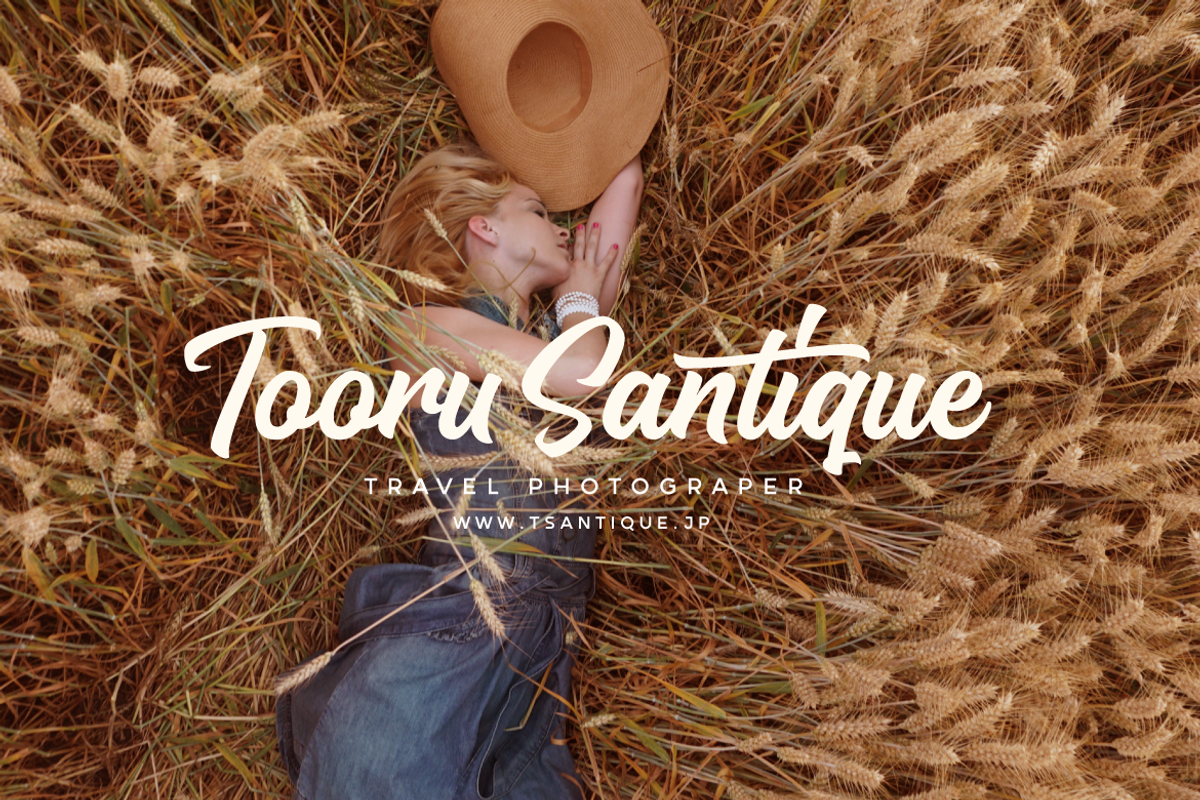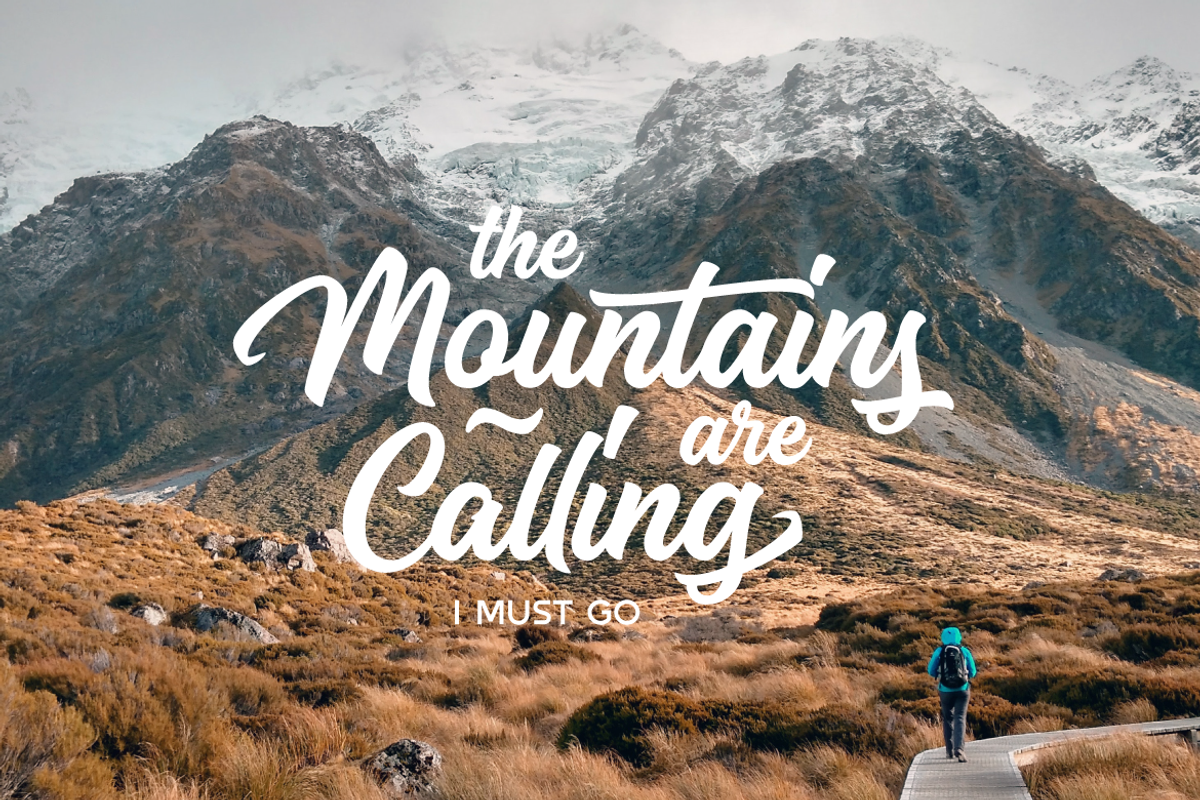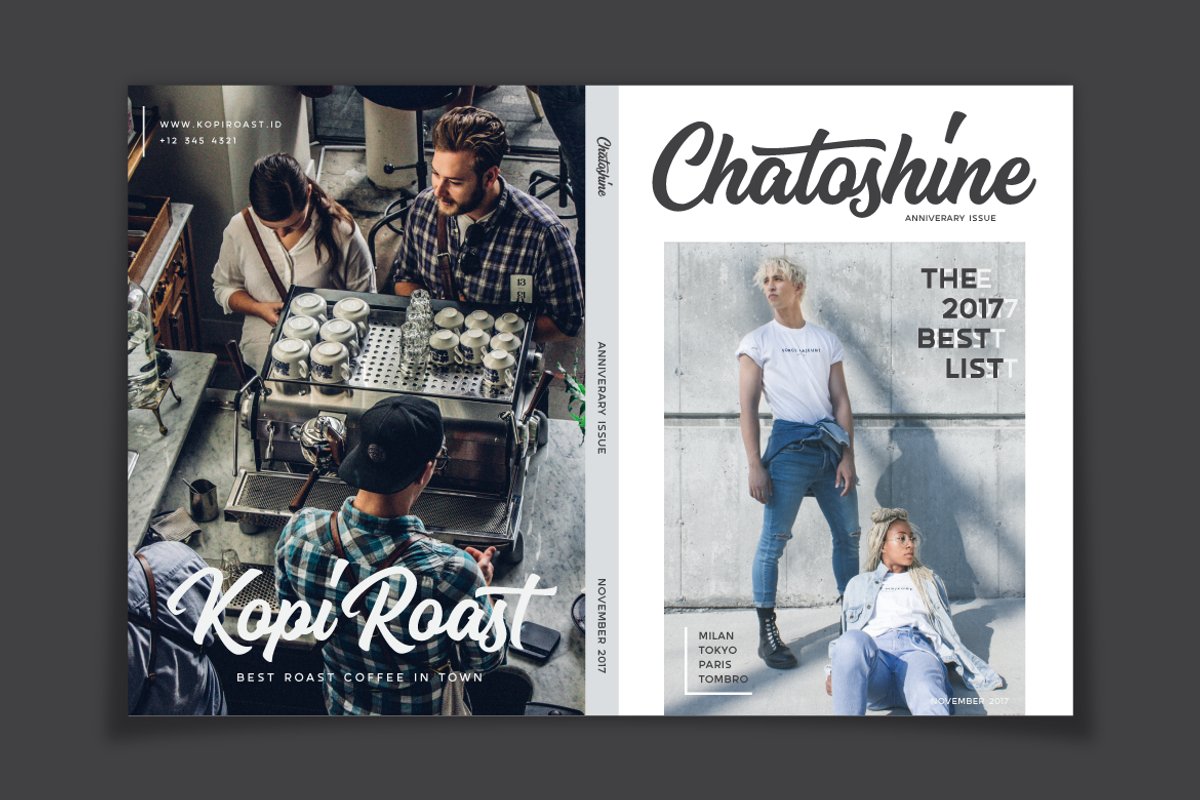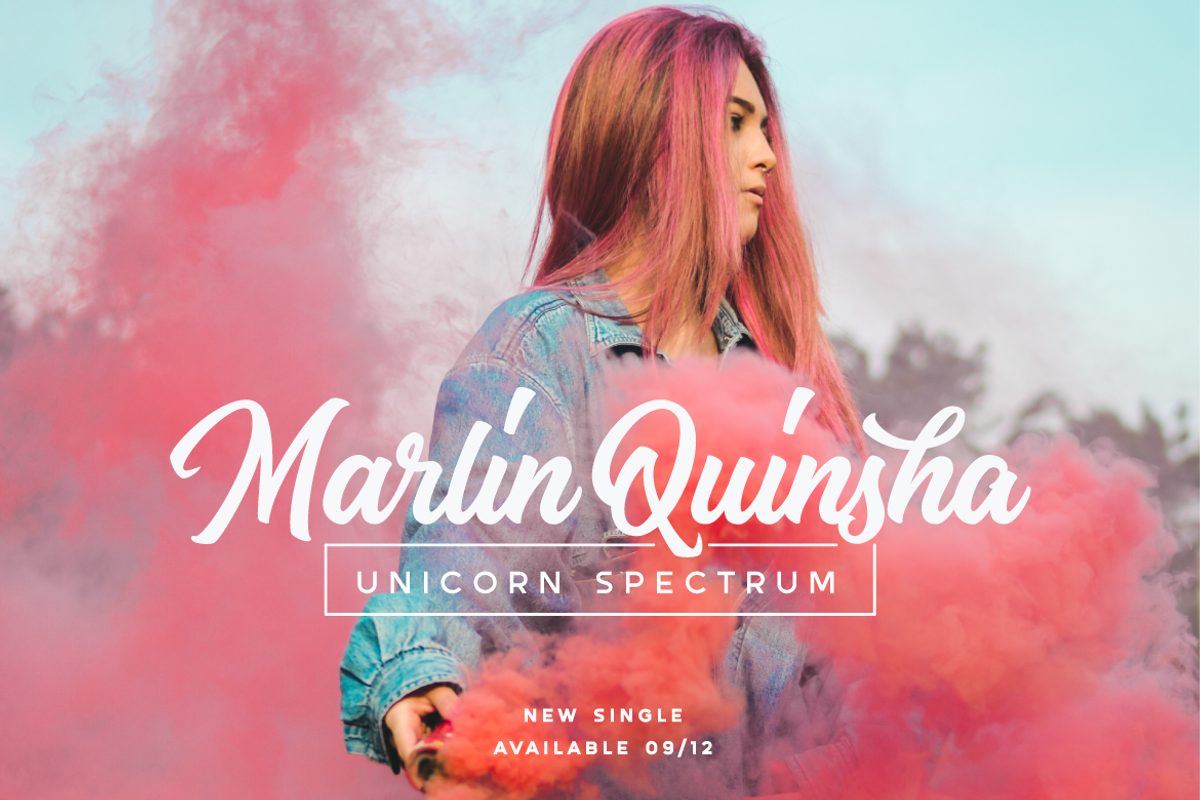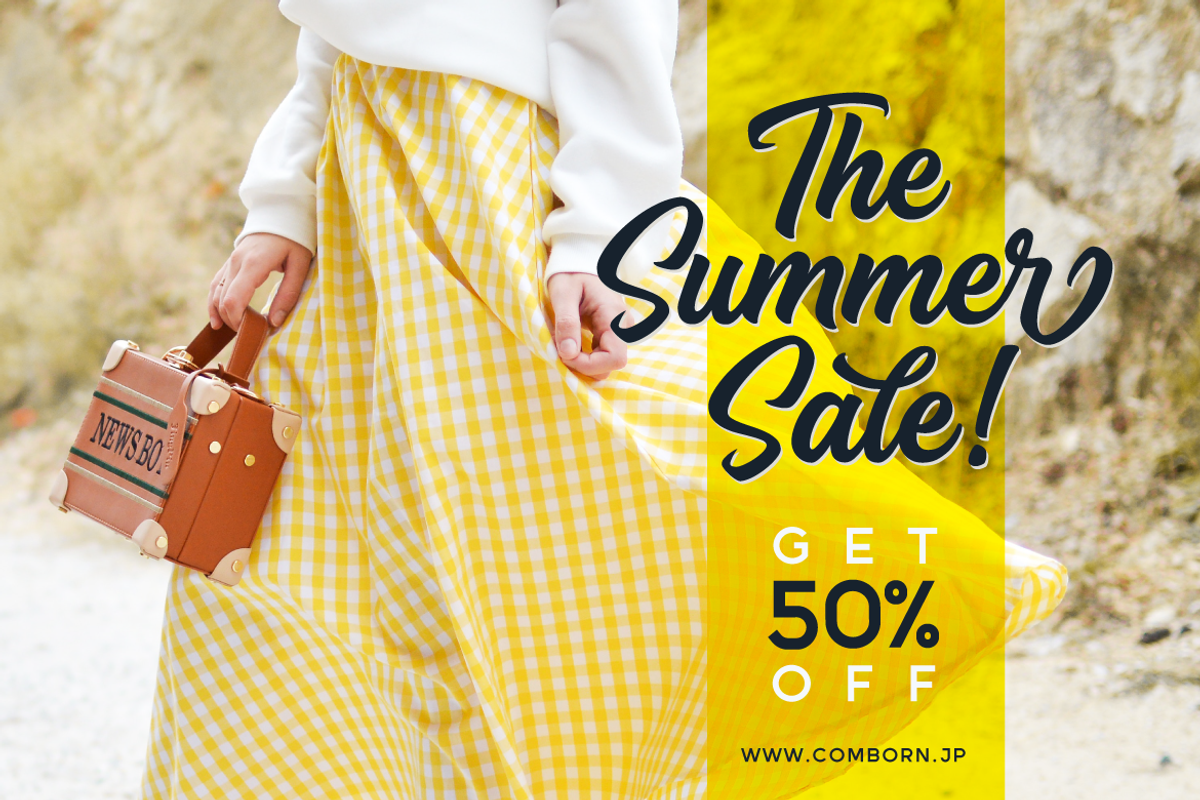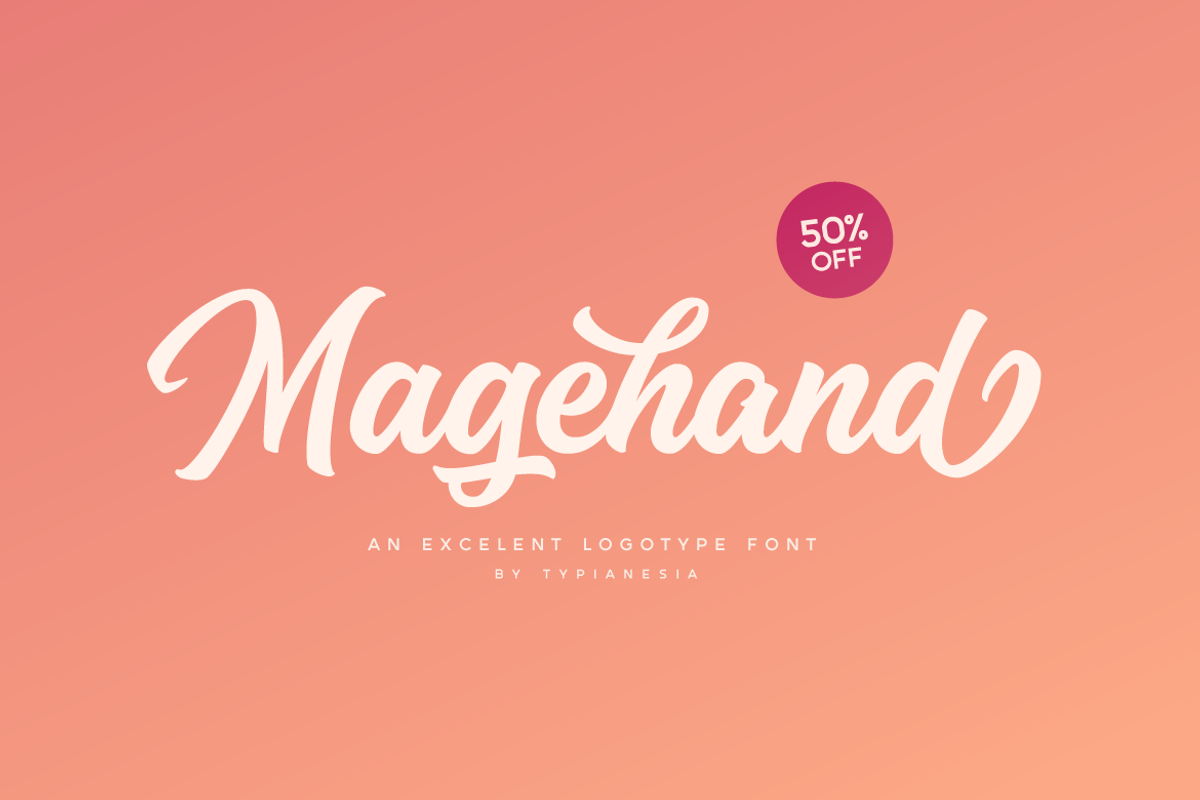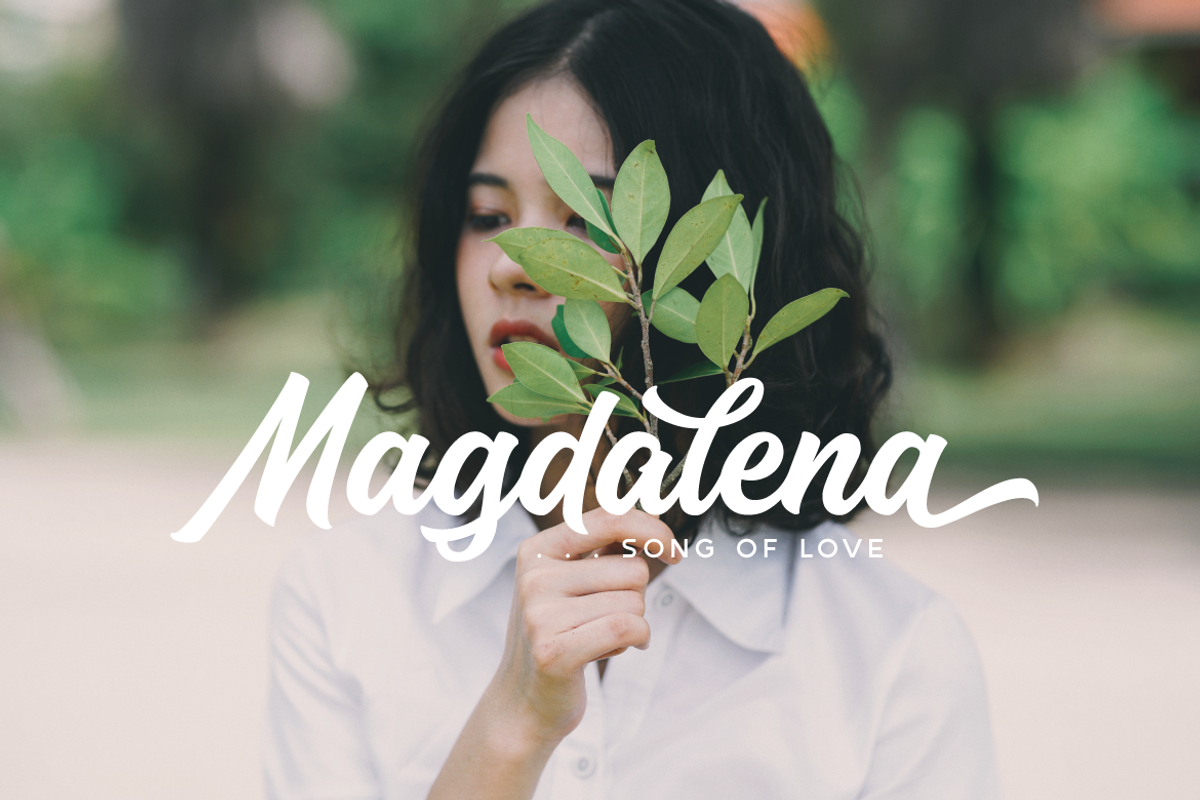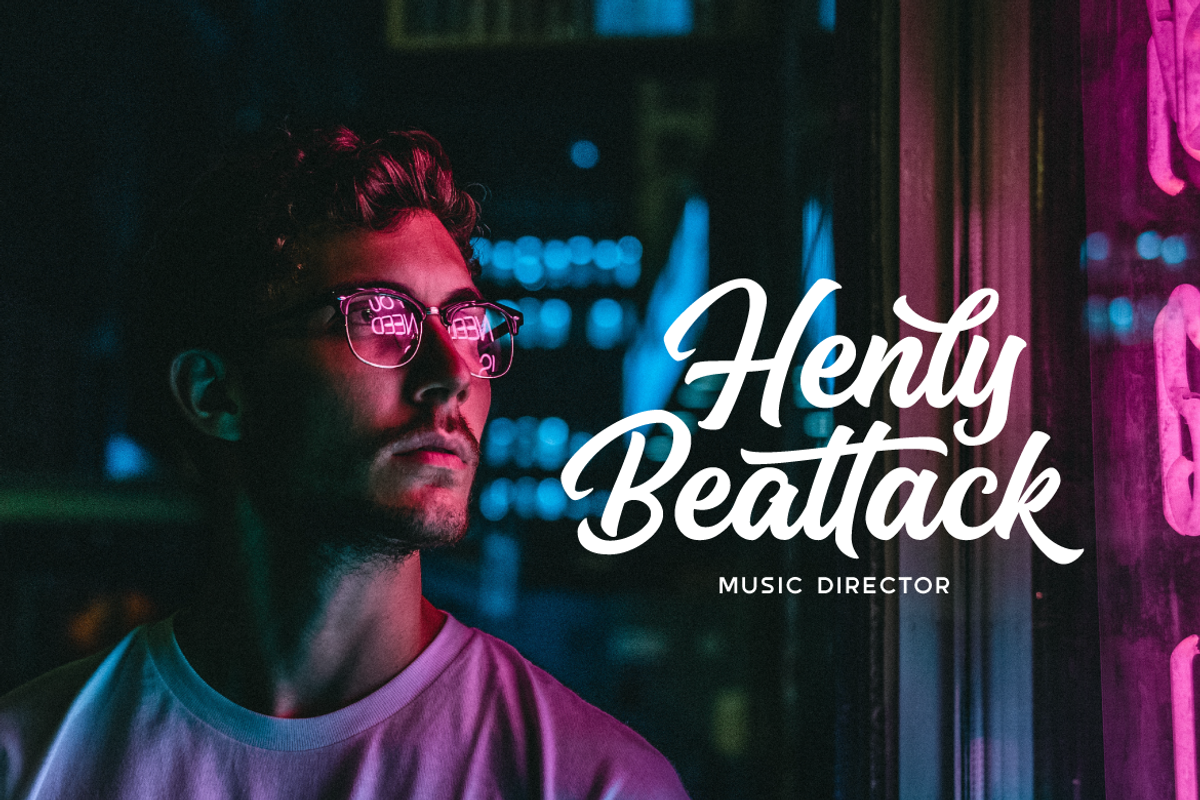
Magehand Logo Font
Magehand an excellent font for modern hand lettering logo or headline / display designs.
Suitable for any design needs : logo, branding, modern advertising design, logos, poster quote, book / cover Title, editorial design, card, custom mug, pillow, t-shirts, and any hand-lettered needs.
Magehand (.ttf + .otf) comes with upper and lowercase Standard Characters, Punctuation, Numerals. And other Glyphs variation of the OpenType features such as Standard Ligature, Discretionary Ligatures, Stylistic Alternate and Stylistic Set (ss01 - ss18).